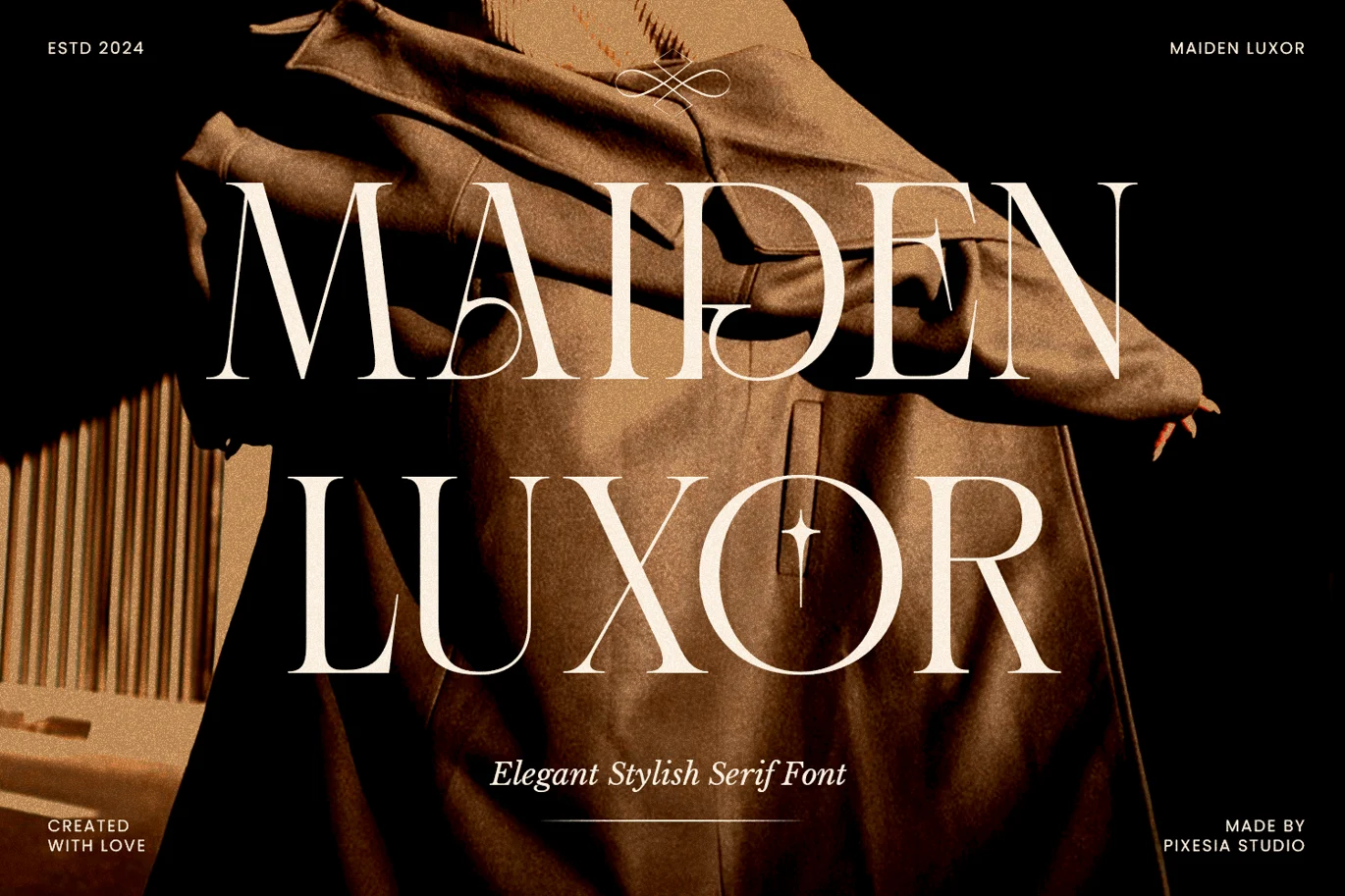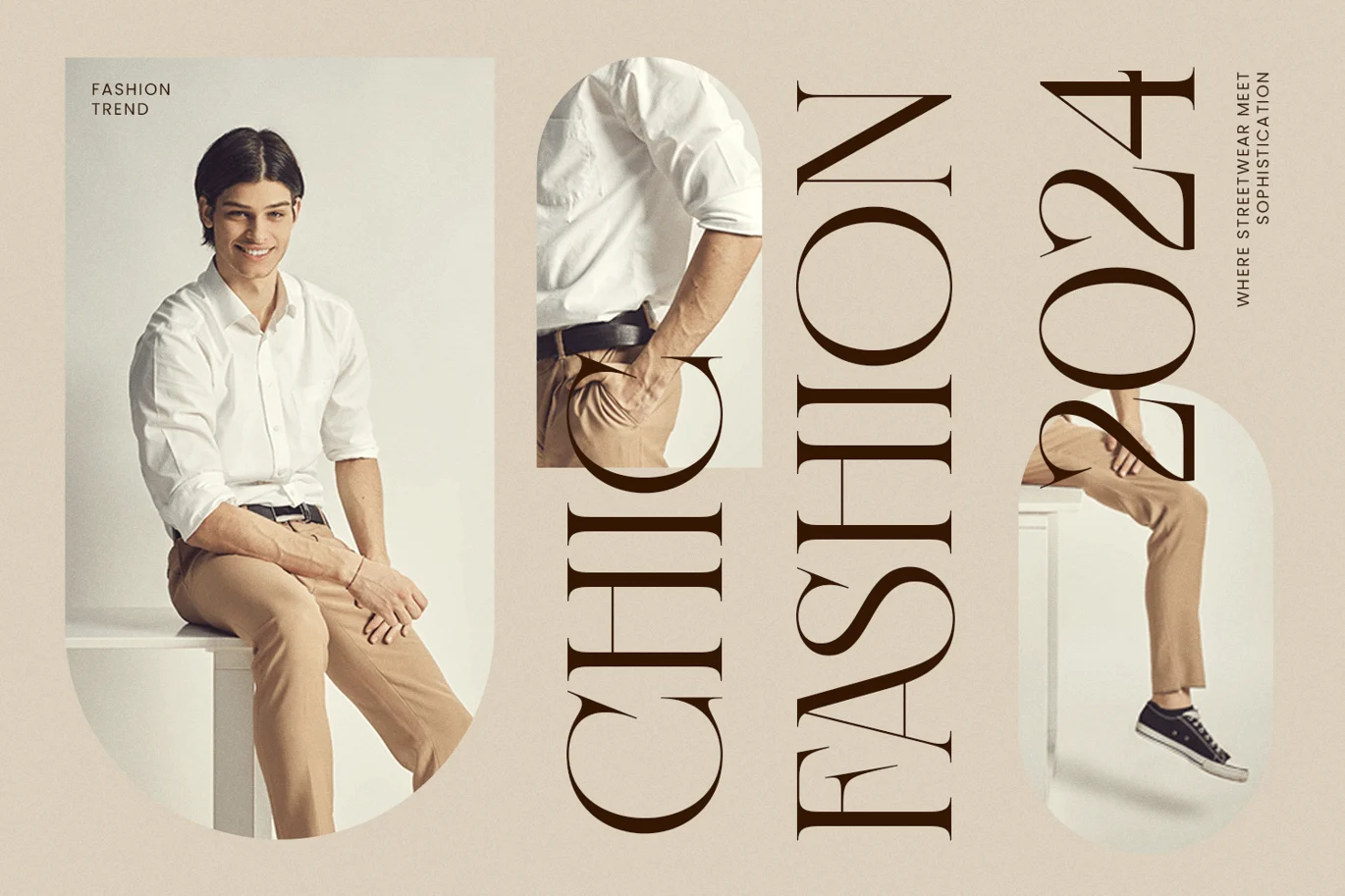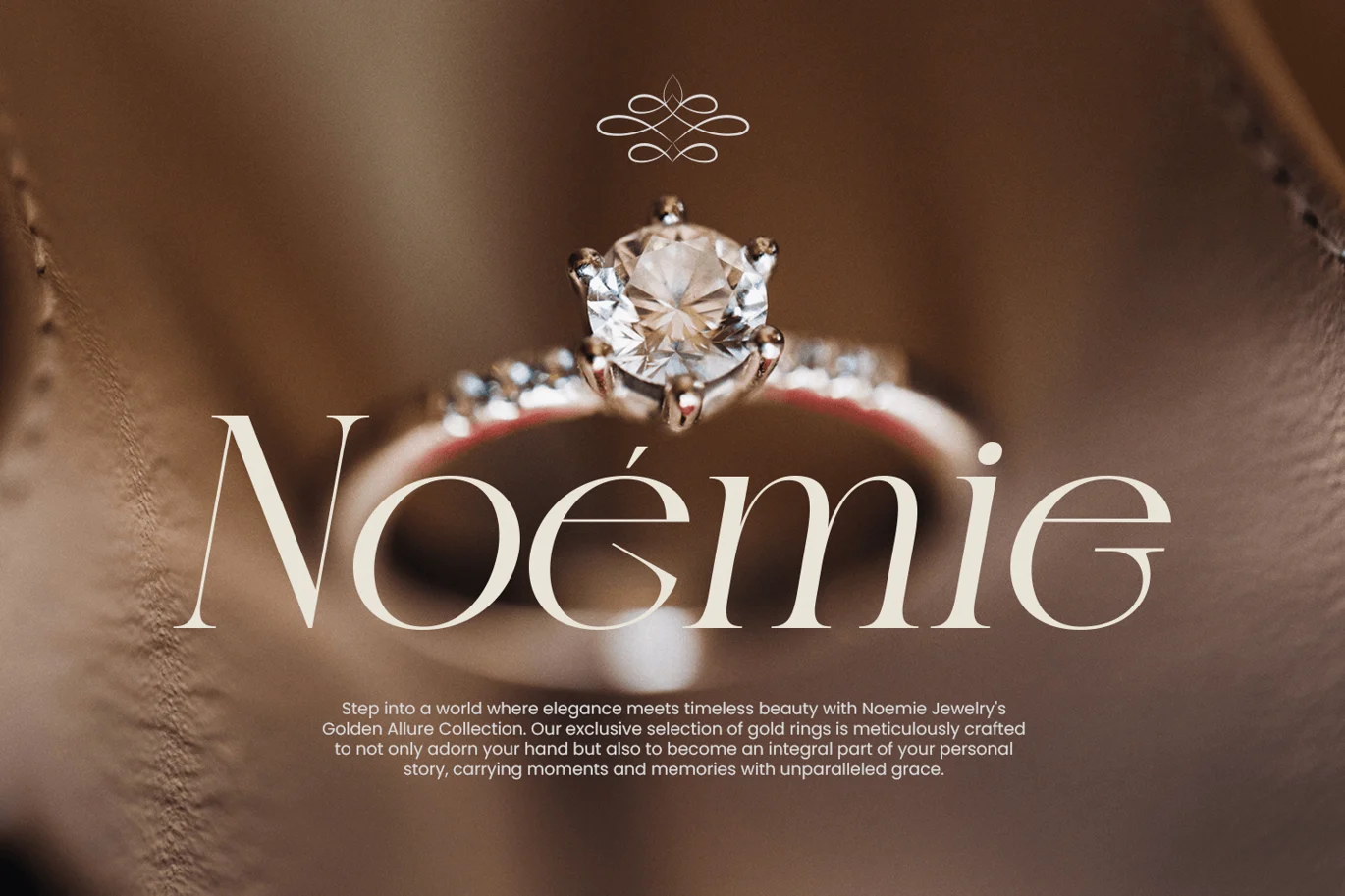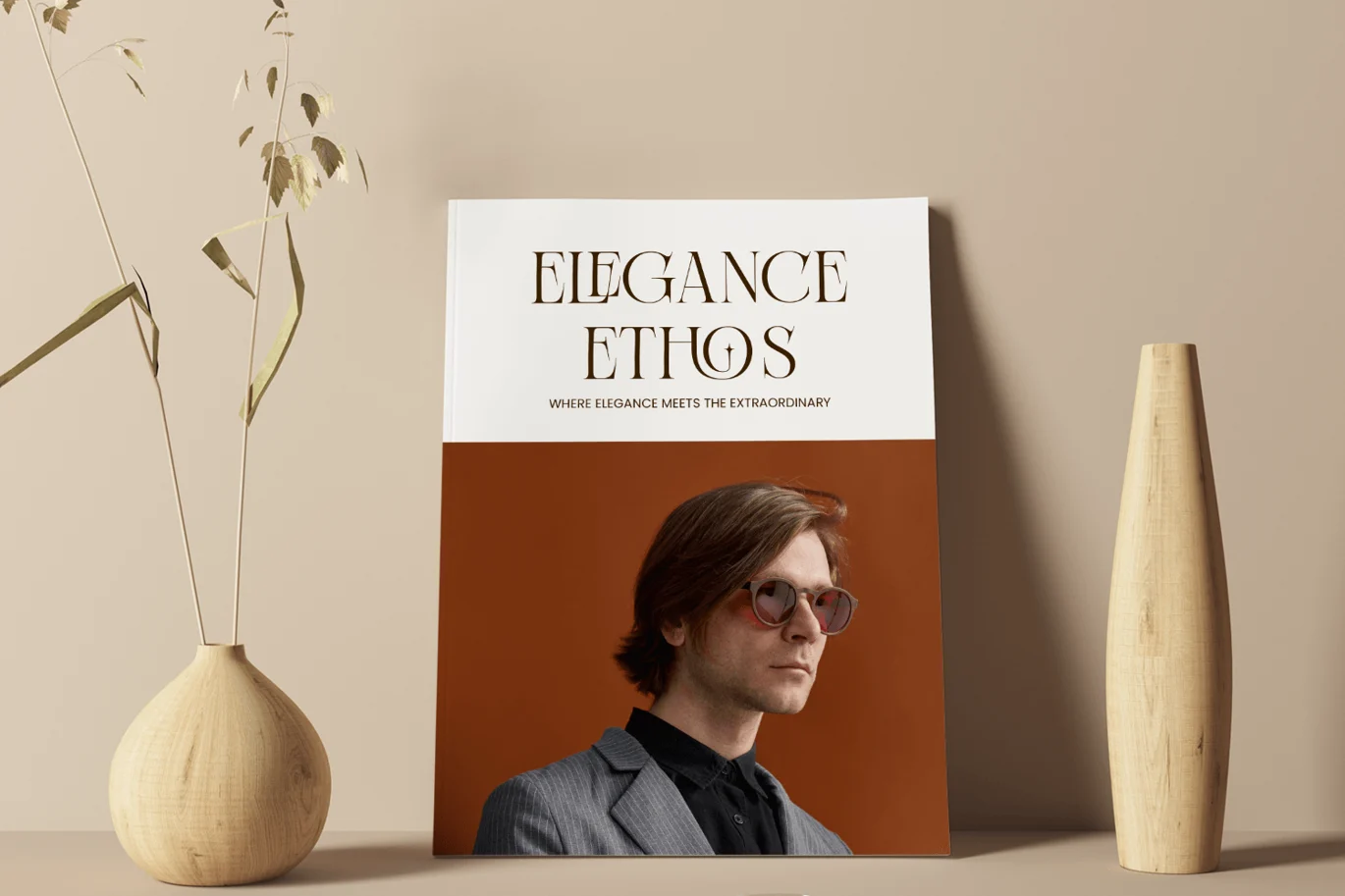
Maiden Luxor – Modern Luxury Serif Font
Introducing Maiden Luxor - Modern Luxury Serif Font
Maiden Luxor is a sleek and modern serif font that offers a touch of luxury to your projects. This sleek font boasts strong character lines and an elegant charm that never goes out of style. The classic serif is blended with modern flair, making it stand out with its unique ligature feature, perfect for enhancing any design.
FEATURES:
- Stylistic Alternates
- Uppercase and Lowercase letters
- Numbering and Punctuations